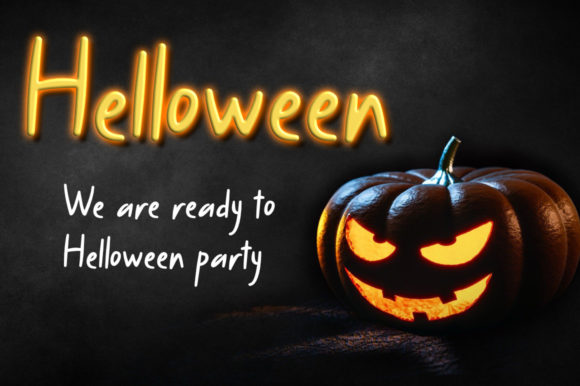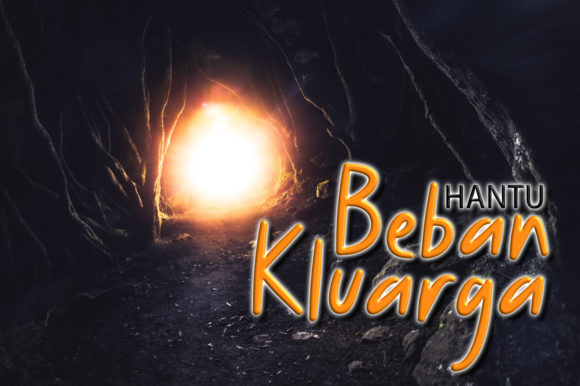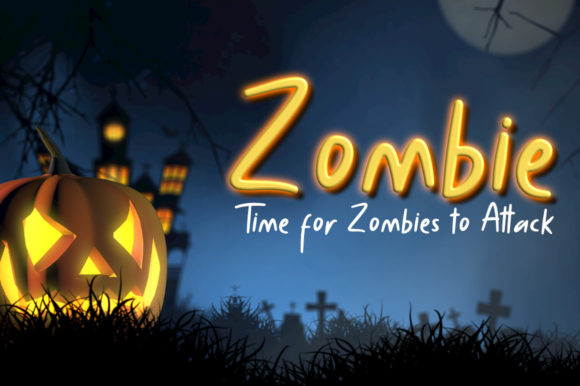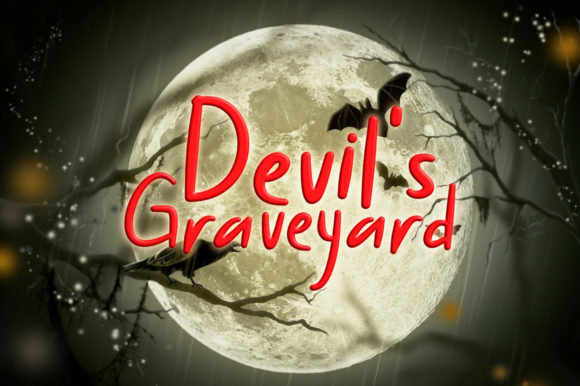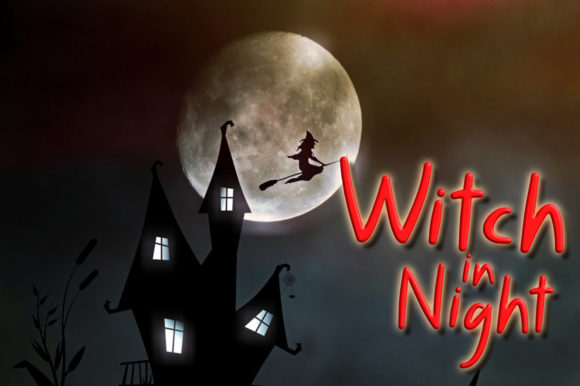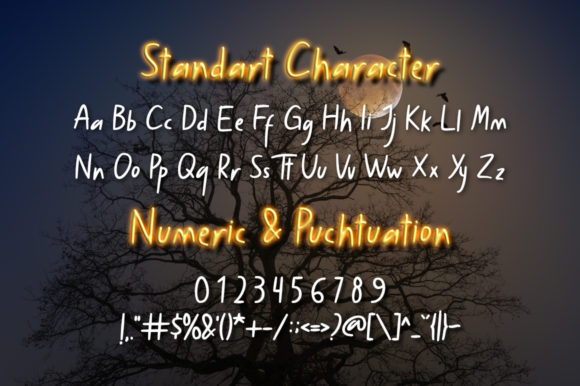
The Perfect Match for Your Next Creative Project
Have you ever stared at a blank canvas, unsure of where to begin? The cursor blinks, taunting you with its silence. But then, it happens – a spark of inspiration strikes, and your creativity takes flight. For designers, this moment is a thrill, and the right tools can make all the difference. That’s where the Baby Dolle Font comes in – a simple, clean, and adaptable display font that’s ready to elevate your next project.
Baby Dolle Font is more than just a font; it’s a versatile companion that can breathe new life into any design. Its minimalist charm makes it perfect for a wide range of applications, from elegant typography to bold headlines. Whether you’re working on a branding project, a graphic novel, or a social media campaign, Baby Dolle Font is a valuable addition to your font library.
Baby Doll Font Key Features
- Font Family: Baby Doll Font is a font family consisting of various styles, including Regular, Bold, Italic, and Bold Italic.
- Unique Characteristics: The Baby Doll Font features a playful, cursive design with a mix of rounded and pointed letters, making it perfect for creating a whimsical and childlike atmosphere in designs.
- Characters and Glyphs: The font includes a wide range of characters, including uppercase and lowercase letters, numbers, punctuation marks, and special characters, as well as various ligatures and swashes.
Review: Baby Dolle Font
At first glance, the Baby Dolle Font seems like a playful and whimsical addition to any design project. ✨ Its unique, handwritten feel instantly grabs attention and can add a touch of personality to logos, posters, and other promotional materials.
- Unique, handwritten feel that sets it apart from more traditional fonts.
- Highly versatile and can be used in a variety of contexts, from children’s products to fashion brands.
- Has a clear, legible design that makes it easy to read, even in smaller font sizes.
However, the Baby Dolle Font is not without its limitations. ⚠️ The most notable issue is its potential lack of sophistication, which may make it less suitable for more formal or professional applications.
- Lack of sophistication may make it less suitable for formal or professional applications.
- May not be as effective in contexts where a more serious or professional tone is desired.
Overall, the Baby Dolle Font is a fun and creative addition to any designer’s toolkit. While it may not be the best choice for every project, it’s definitely worth considering for designs that require a playful, whimsical touch.
The Baby Doll Font is perfect for:
- Creating whimsical and playful designs.
- Adding a touch of femininity to your projects.
- Designing children’s products or educational materials.
To get the most out of the Baby Doll Font, try:
- Combining it with other playful fonts for a unique look.
- Using it in conjunction with pastel colors for a soft and feminine aesthetic.
- Experimenting with different font sizes and styles to create visual interest.
Alternatives to Baby Dolle Font
Great Vibes Font is a handwritten, modern script font that is perfect for creating a whimsical and playful atmosphere. It is ideal for use in branding, advertising, and social media. Great Vibes Font has a more elegant and refined feel compared to Baby Dolle Font, which has a more casual and rough texture.
Alex Brush Font is a beautiful, elegant script font that is perfect for creating a sophisticated and high-end atmosphere. It is ideal for use in luxury branding, invitations, and wedding designs. Alex Brush Font has a more refined and polished feel compared to Baby Dolle Font, which has a more casual and playful texture.
Dancing Script Font is a modern, elegant script font that is perfect for creating a dynamic and energetic atmosphere. It is ideal for use in branding, advertising, and web design. Dancing Script Font has a more fluid and expressive feel compared to Baby Dolle Font, which has a more rough and texture.
Yes, the Baby Doll Font is fully editable, allowing you to customize its size, color, and style to fit your design needs. You can also use font editors or software to modify the font’s characteristics, such as letter spacing and kerning.